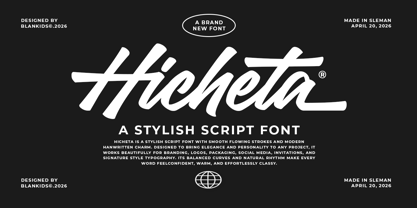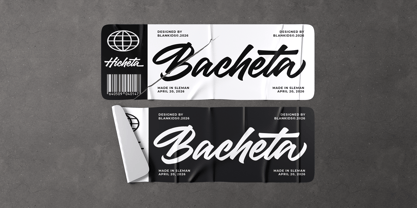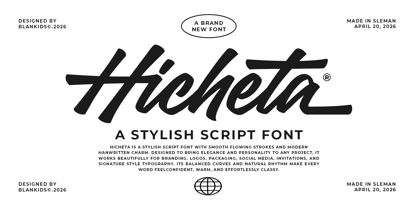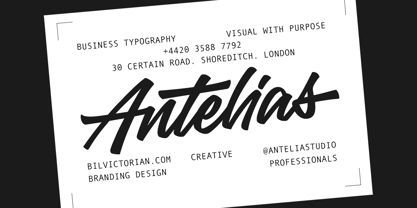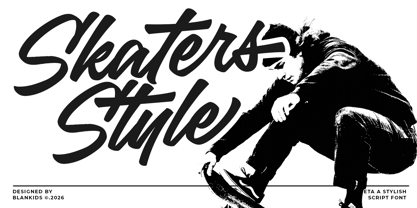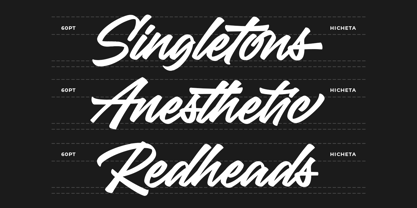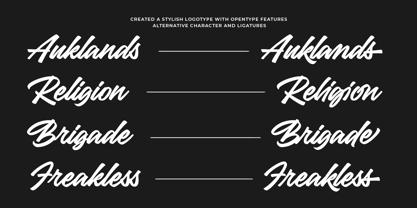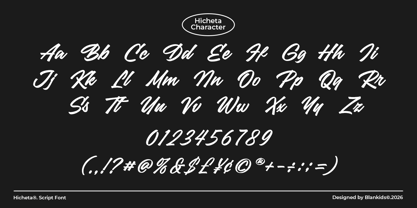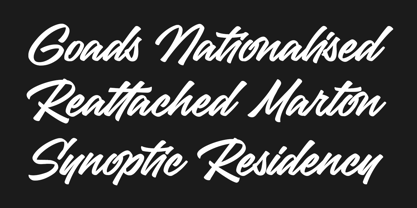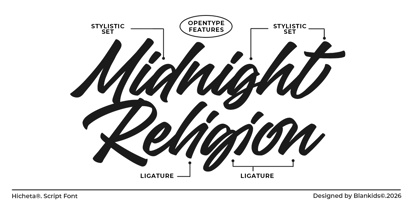
Hicheta
La familia tipográfica Hicheta fue diseñada por Bangkit Tri Setiadi y publicada por Blankids. Hicheta contiene 1 estilos. Más información sobre esta familia
Hicheta is a modern stylish script font designed to bring bold personality and effortless elegance into contemporary design. Crafted with smooth flowing strokes, strong rhythm, and eye-catching ligatures, Hicheta delivers a natural handwritten feel while staying clean and highly legible across digital and print projects. Built for today’s design trends, Hicheta combines urban script aesthetics with branding-ready versatility, making it perfect for creators who want typography that feels expressive, confident, and instantly recognizable. Why Hicheta stands out Hicheta was created to balance style and usability. The letterforms feature dynamic curves, confident swashes, and carefully tuned spacing so your text looks polished without extra effort. Whether used large or small, the font keeps its clarity and strong visual impact. This font includes a rich set of OpenType features that allow designers to customize the look quickly and easily, giving every word a handcrafted feel.